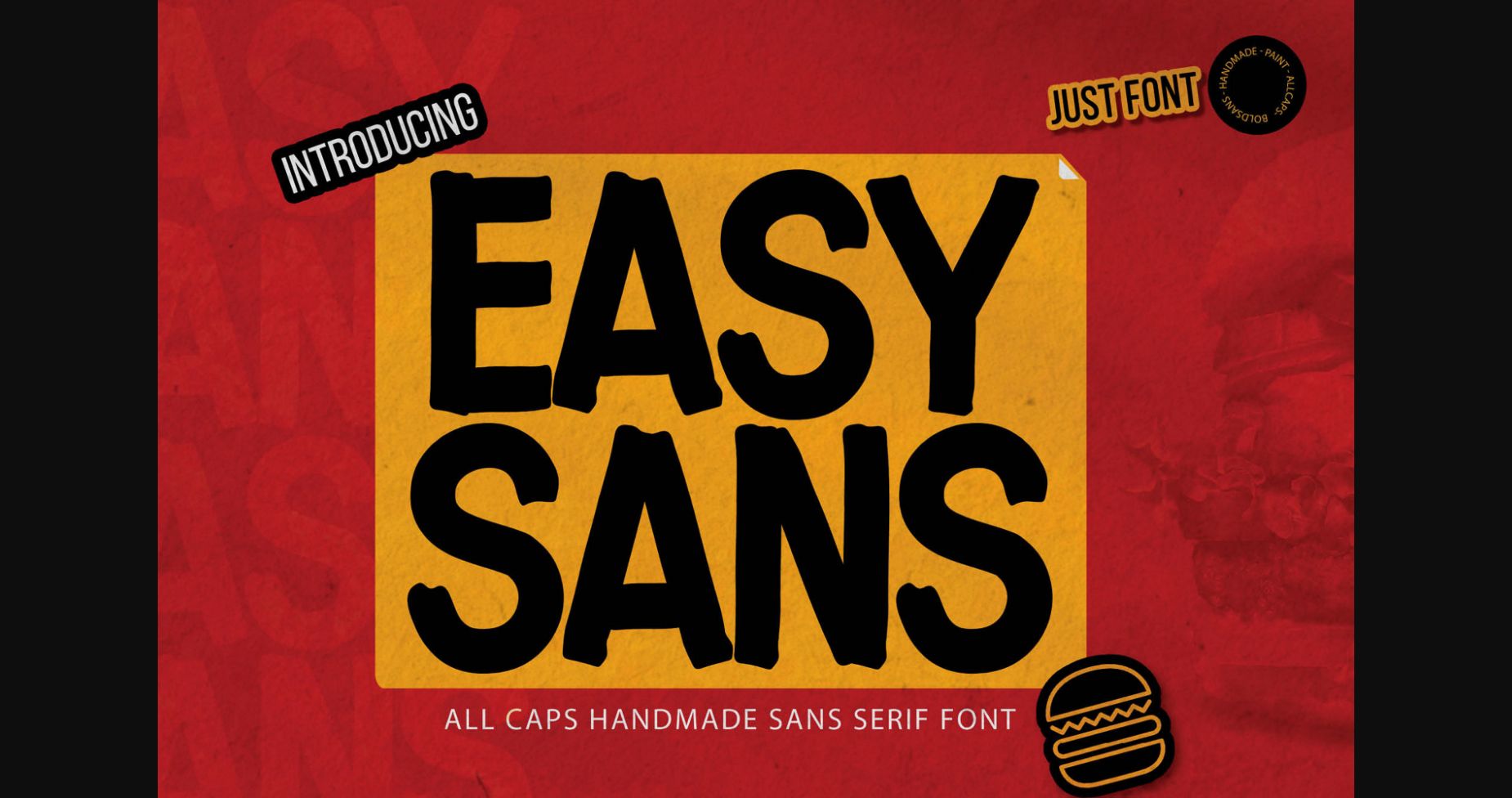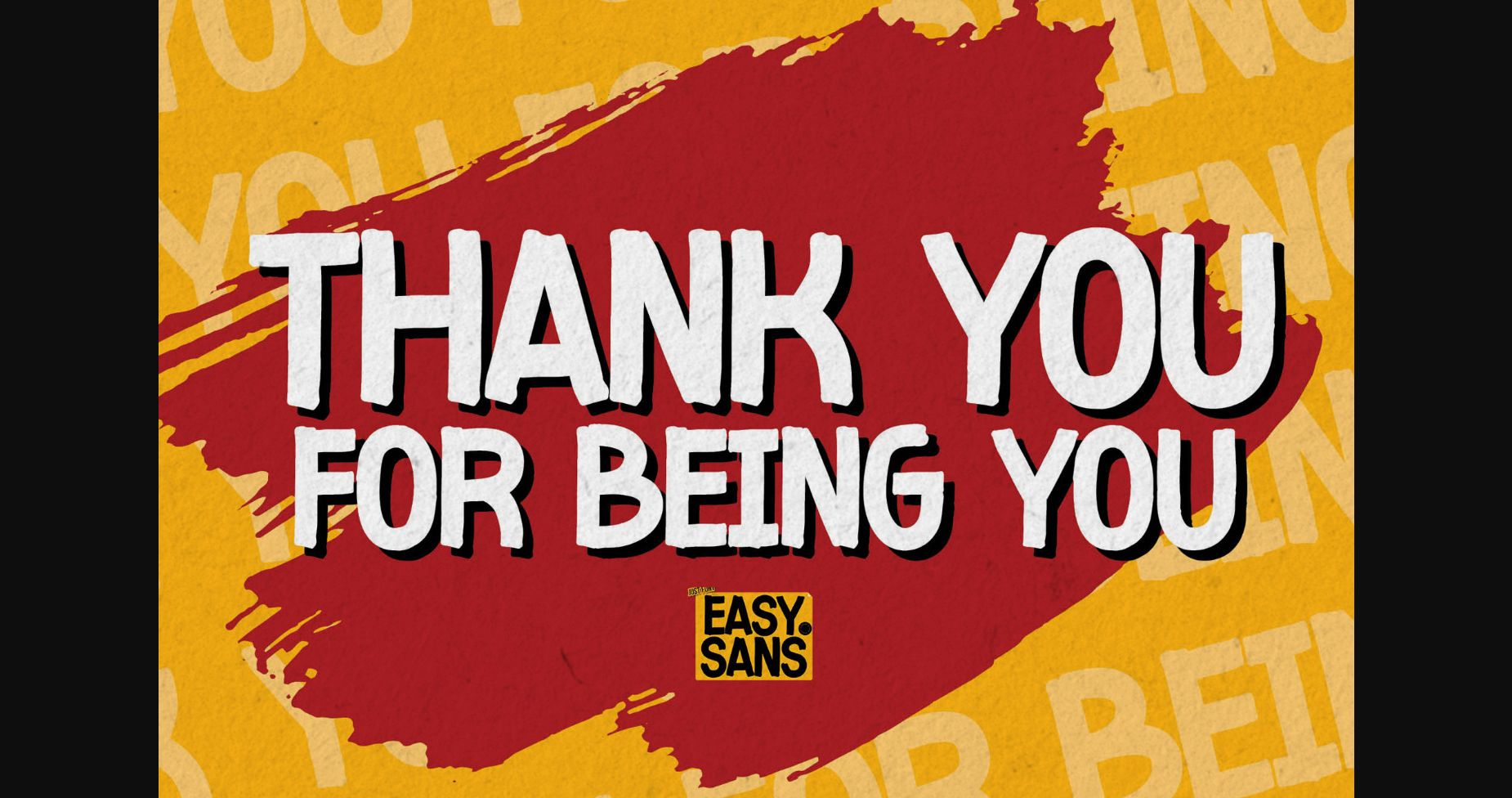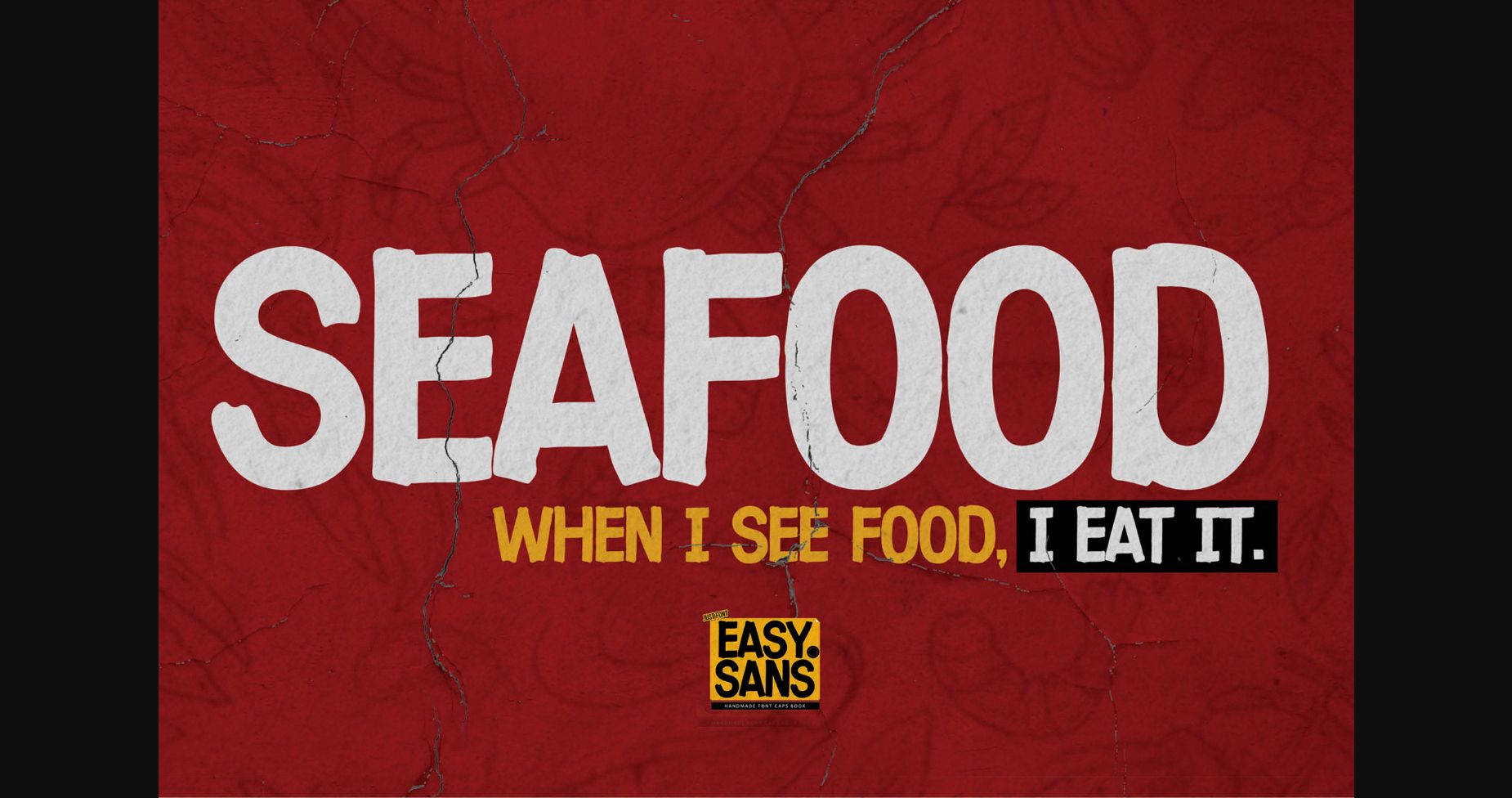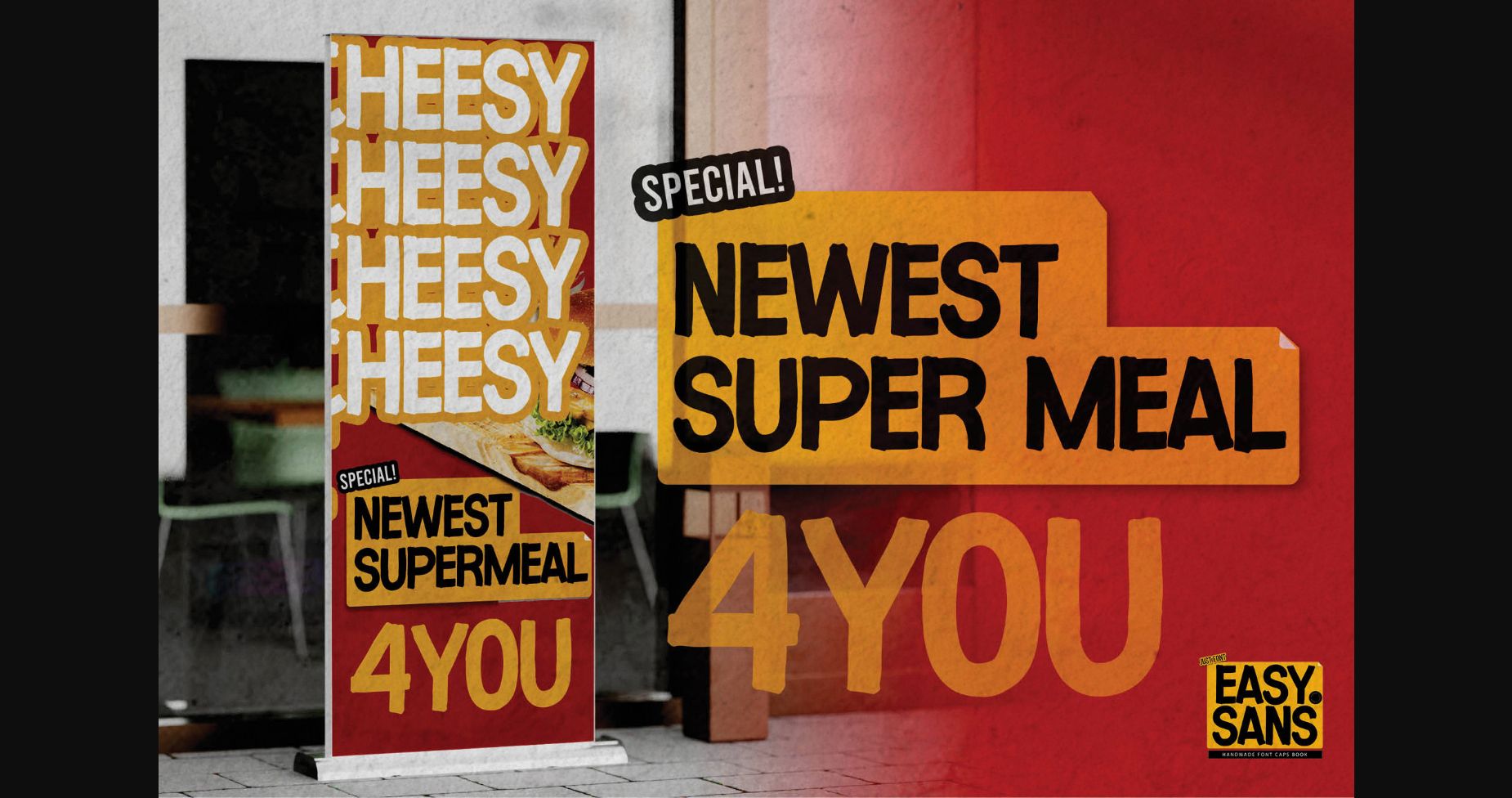
About Easysans Font
Easysans is an all-caps handmade sans serif font, textured sans serif font written casually and quickly. That is why Easysans has a charming, authentic, and relaxed characteristic natural look to your text. Easysans is perfect for homeware designs, branding projects, logo design, quotes products, and packaging.